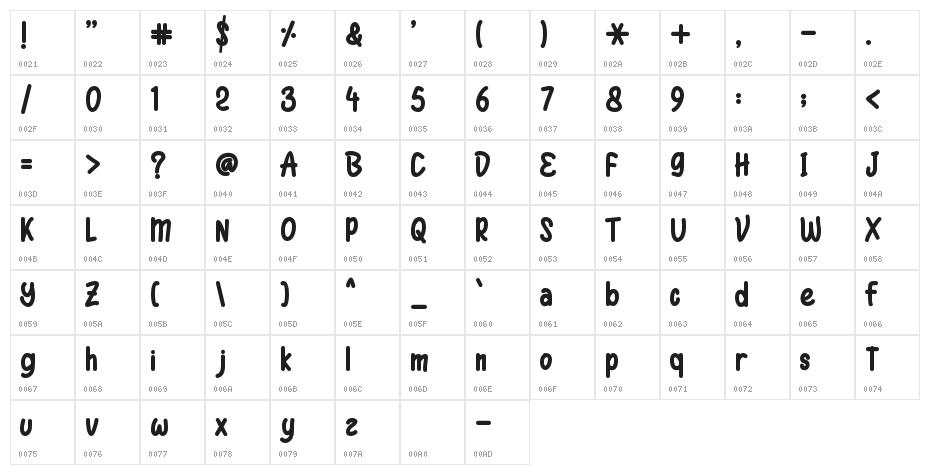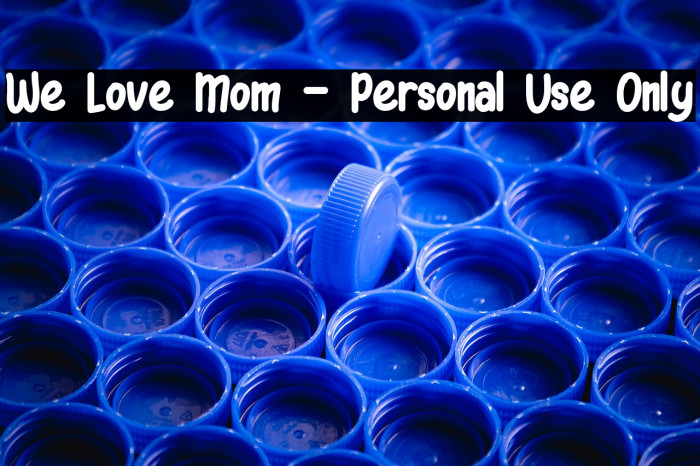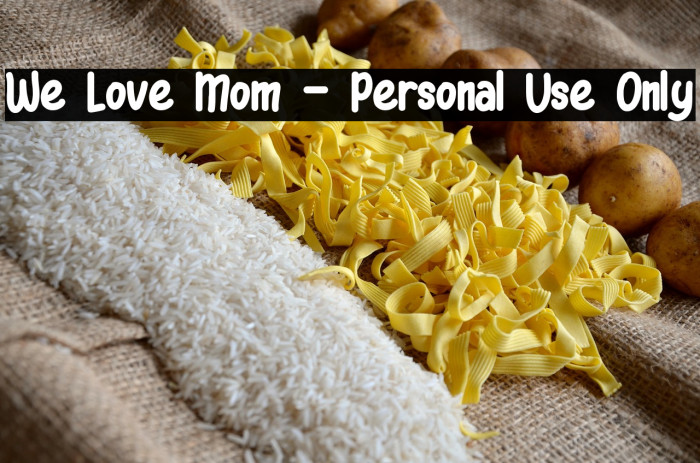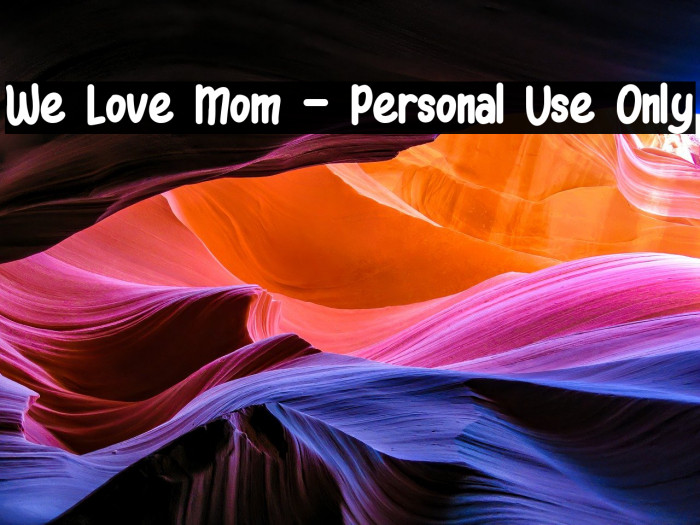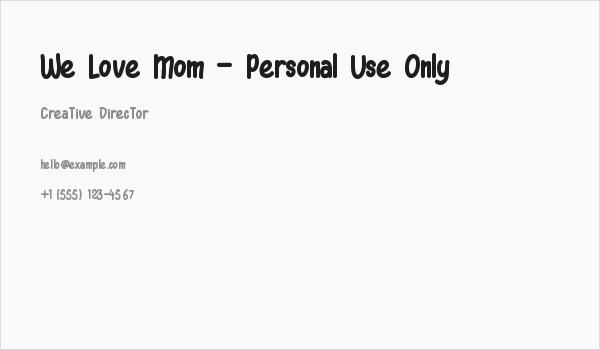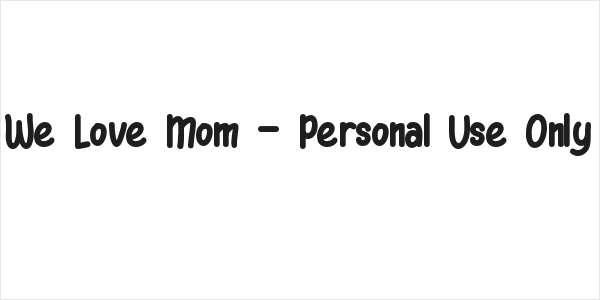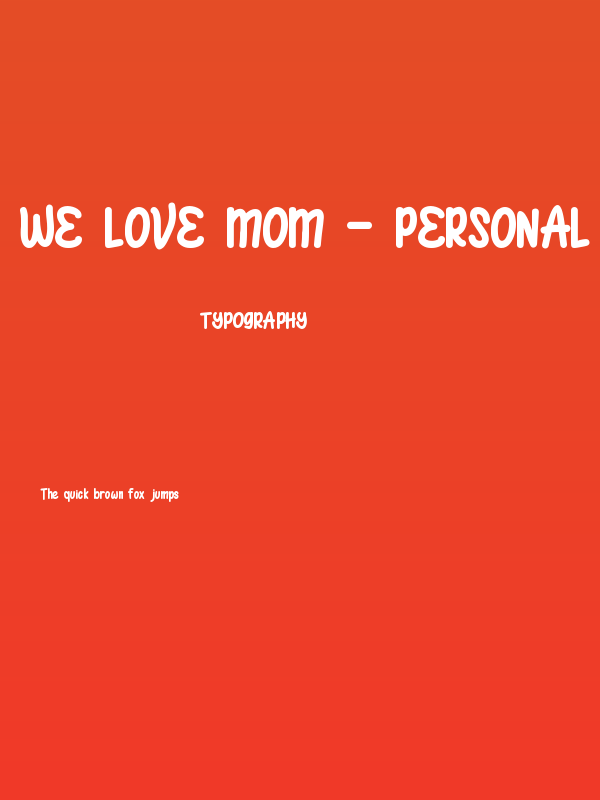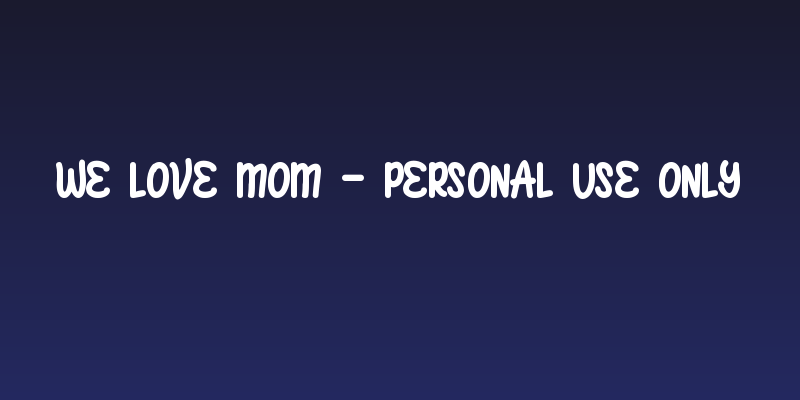
We Love Mom - Personal Use Only Font
We Love Mom - Personal Use Only Description
This playful and bold font features rounded edges and a hand-drawn aesthetic, giving it a friendly and approachable feel. The characters are slightly condensed, with a consistent stroke width that maintains readability while adding a touch of whimsy. The uppercase and lowercase letters are well-proportioned, and the numerals are clear and distinct. Special characters are included, maintaining the same playful style. This font is perfect for projects that require a personal and informal touch, such as greeting cards, children's books, or playful branding.
| Use Case | Logos, Headlines, Informal Text |
| Proposed Projects | Ideal for greeting cards, children's books, playful branding, and informal invitations. |